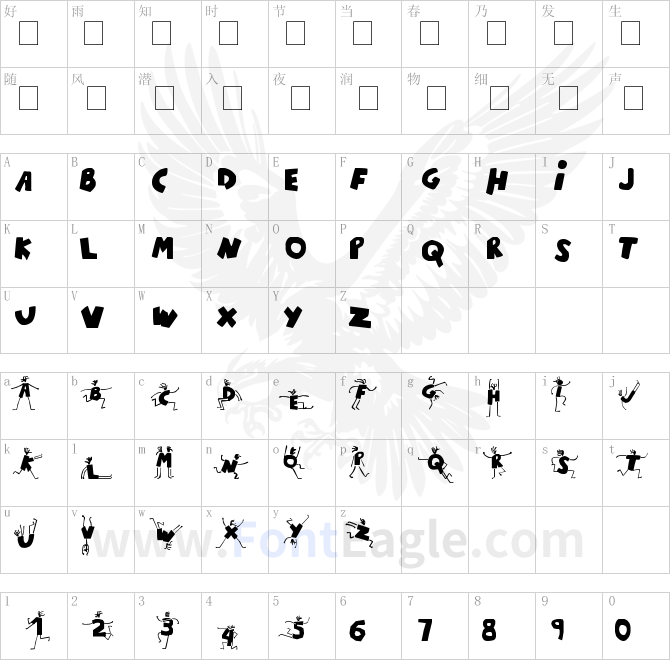
- Font name:ChiquiFont
ChiquiFont is a great font, widely used in graphic design, single-page menu design, poster design and other fields, and is deeply loved by designers.ChiquiFont download.